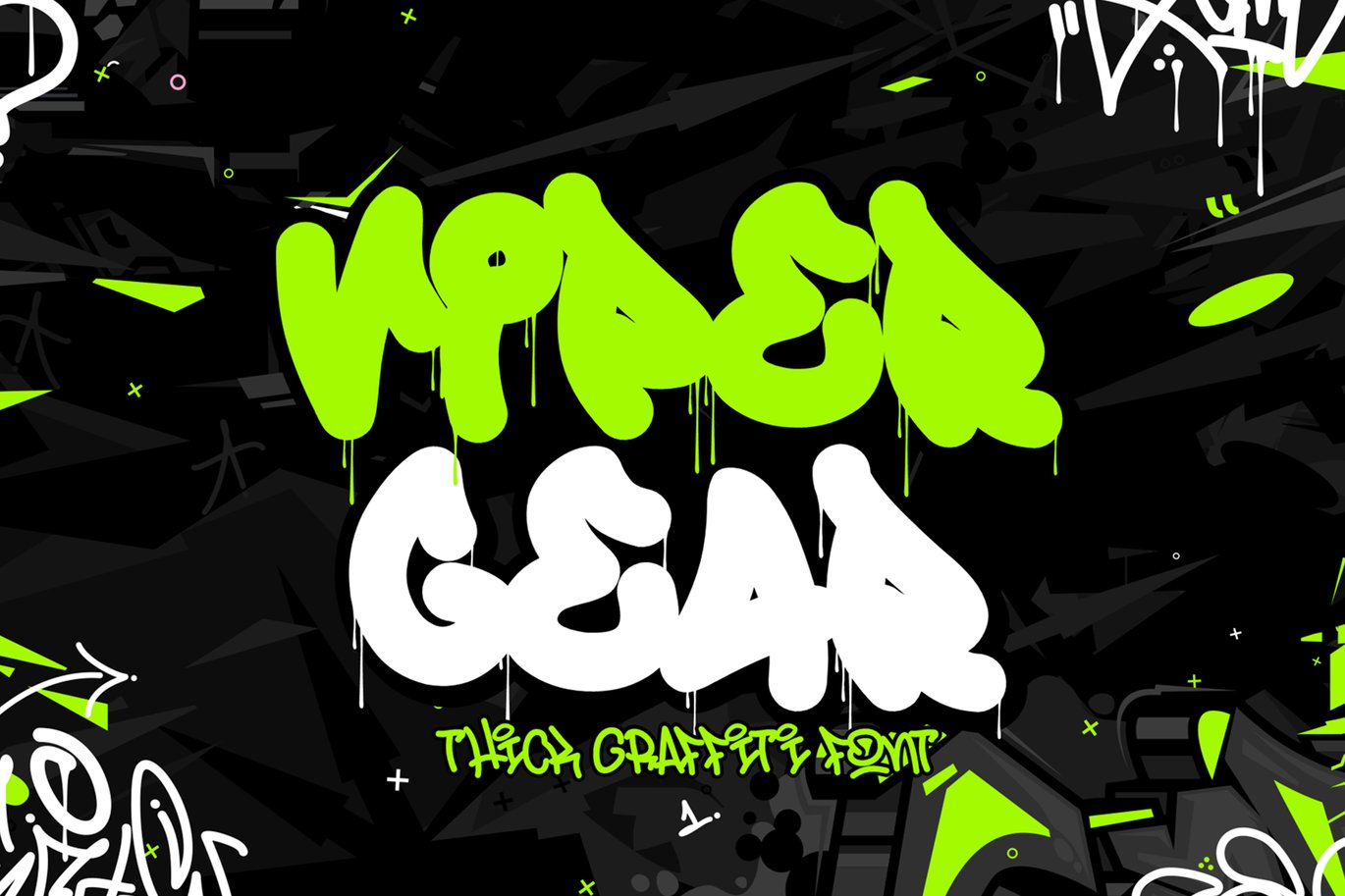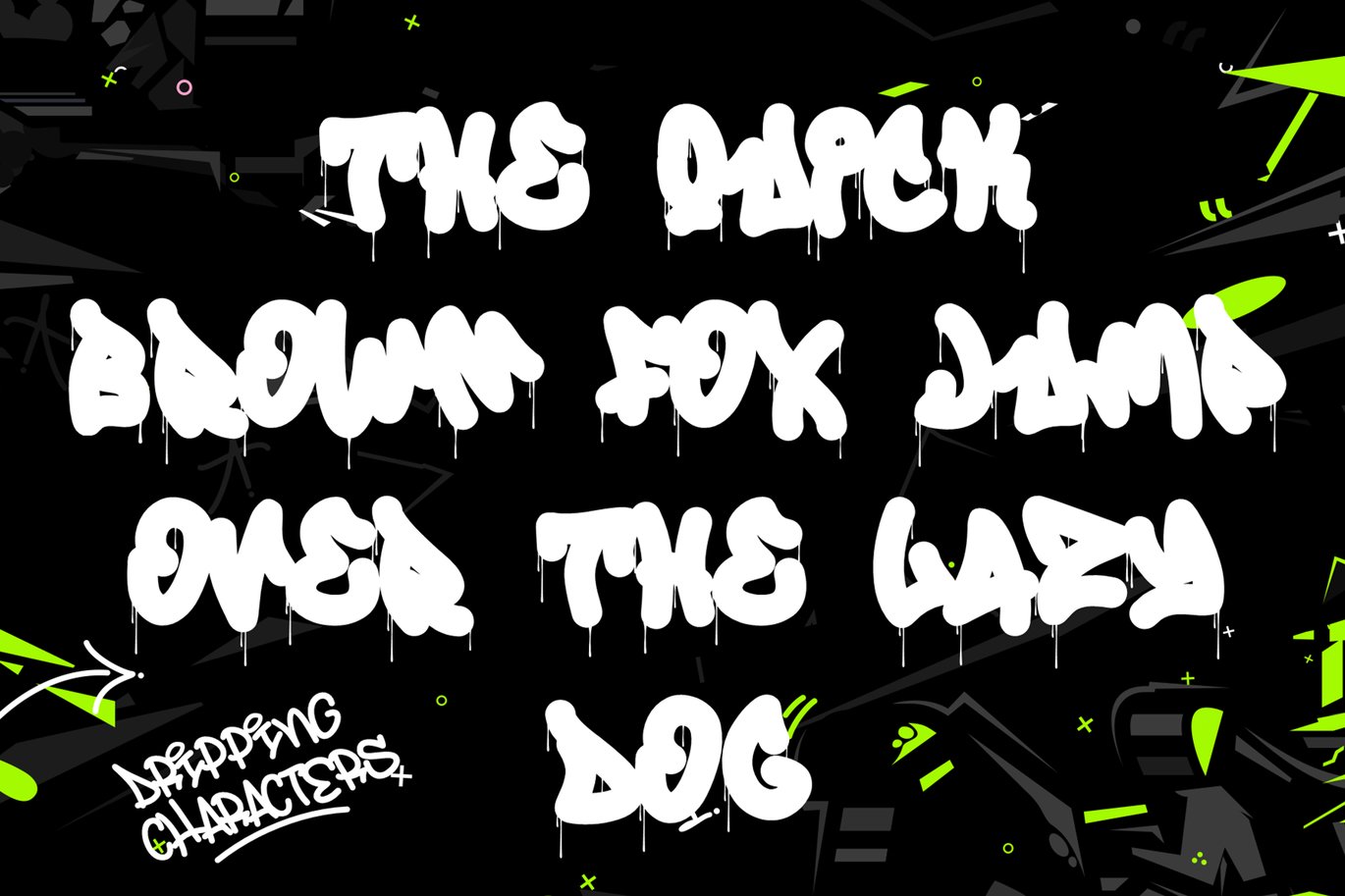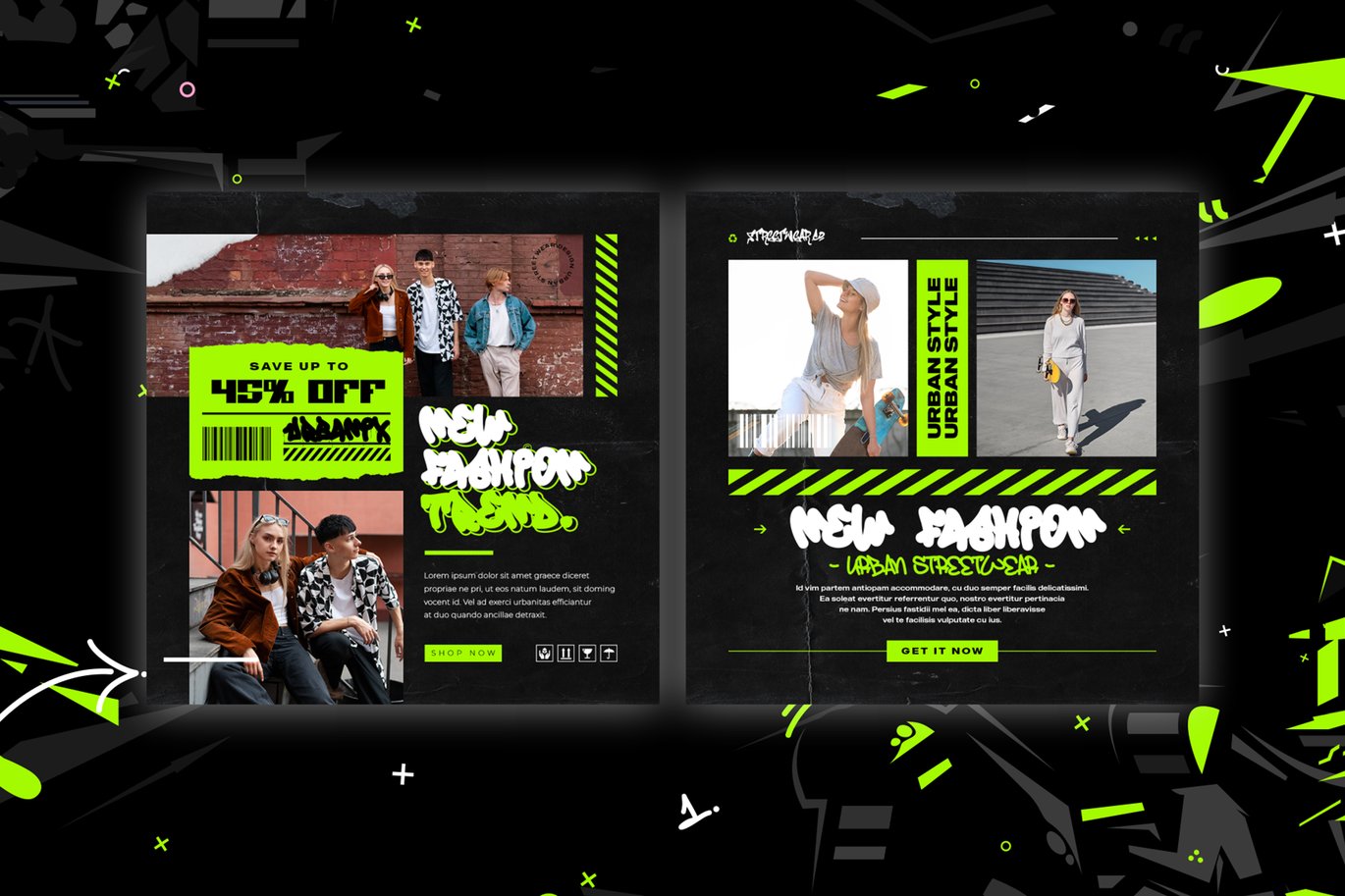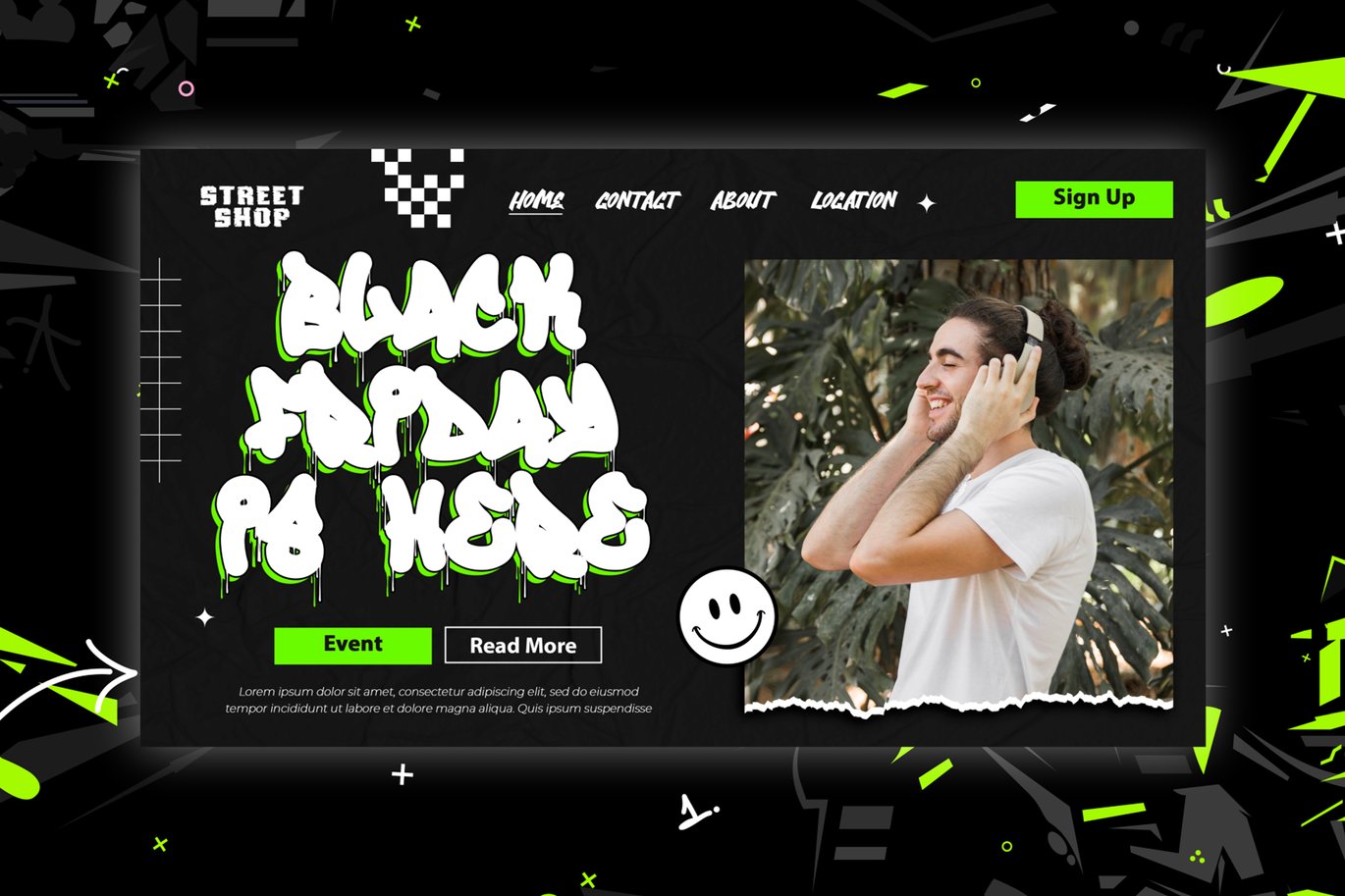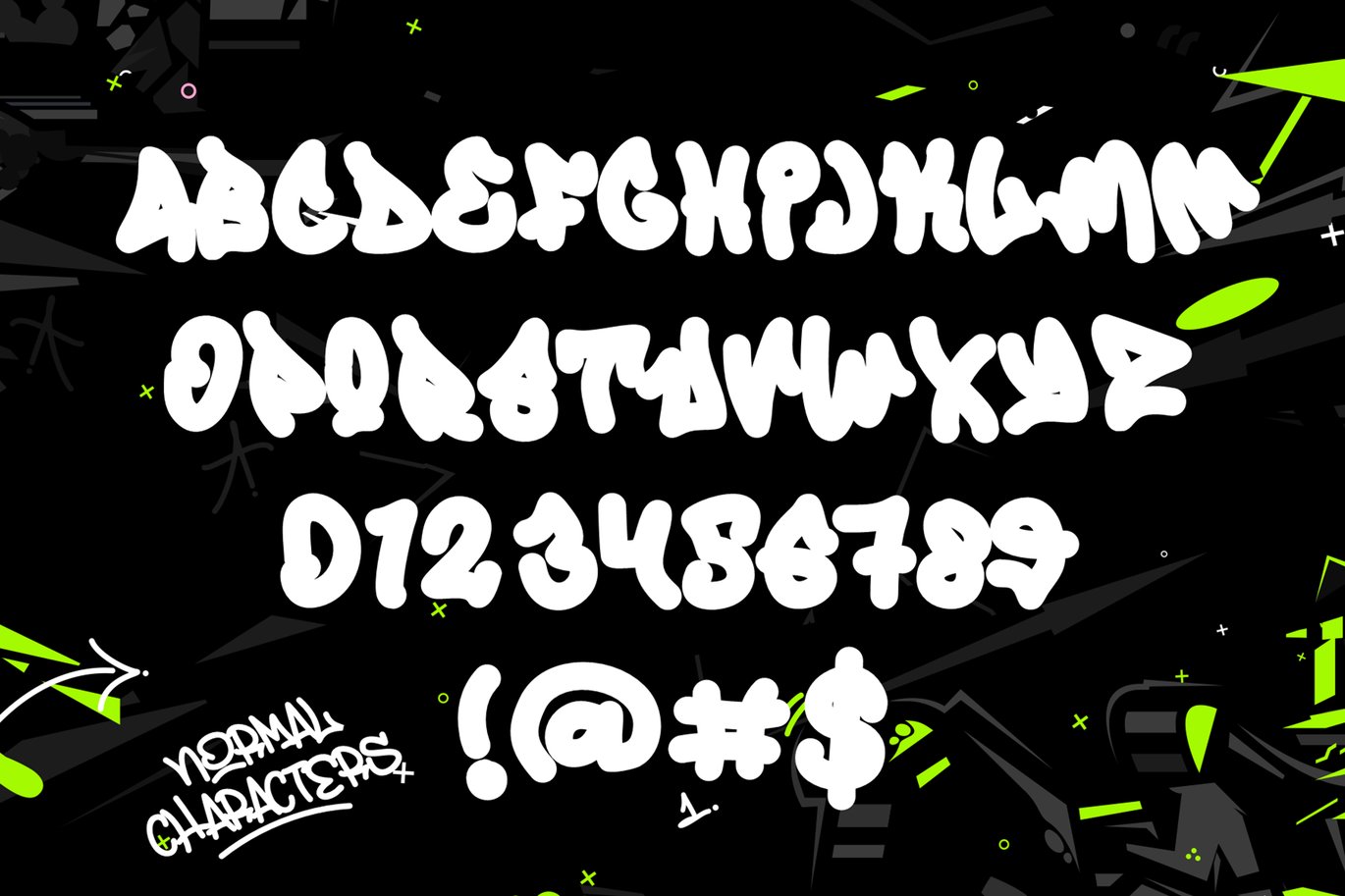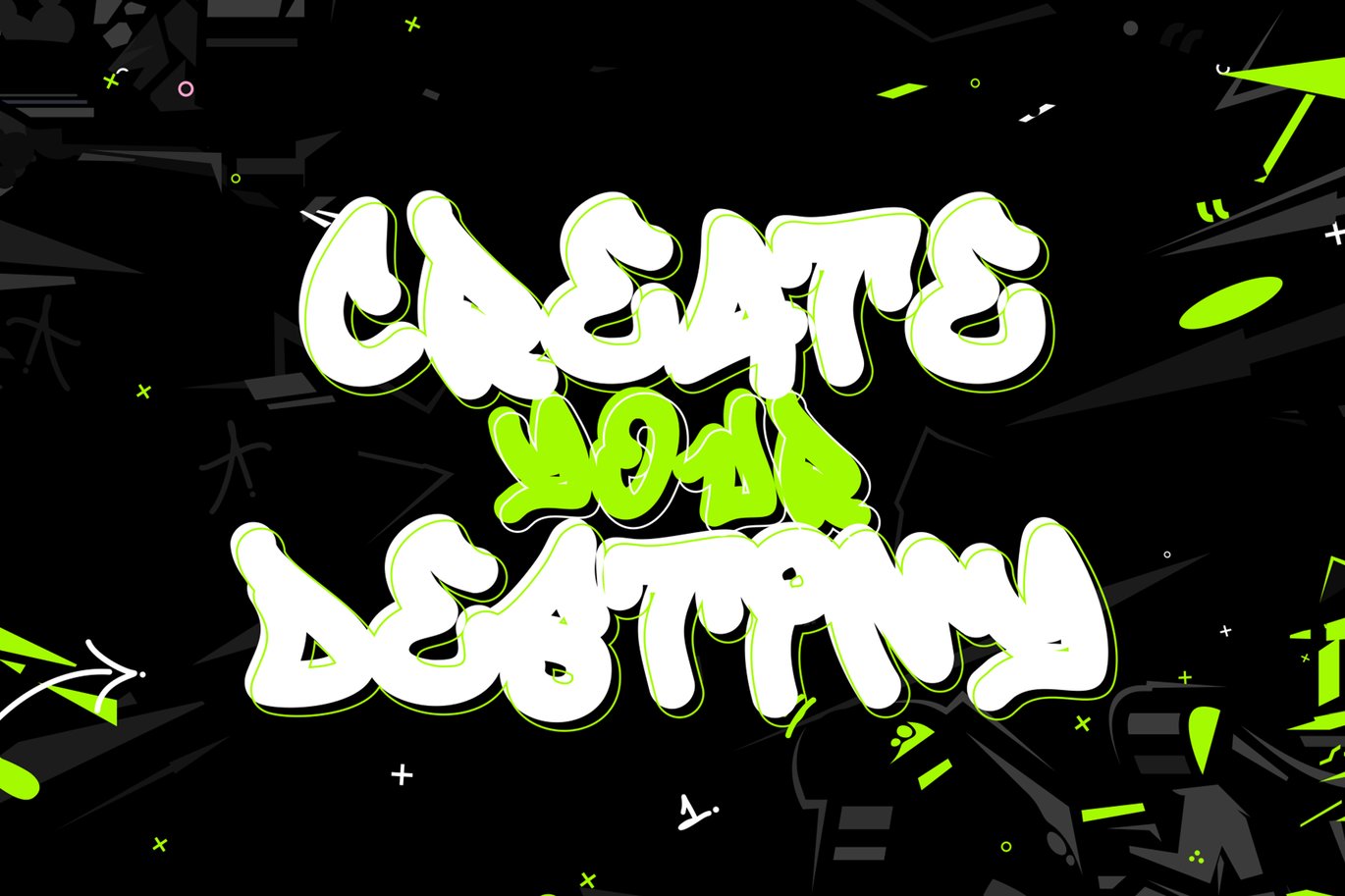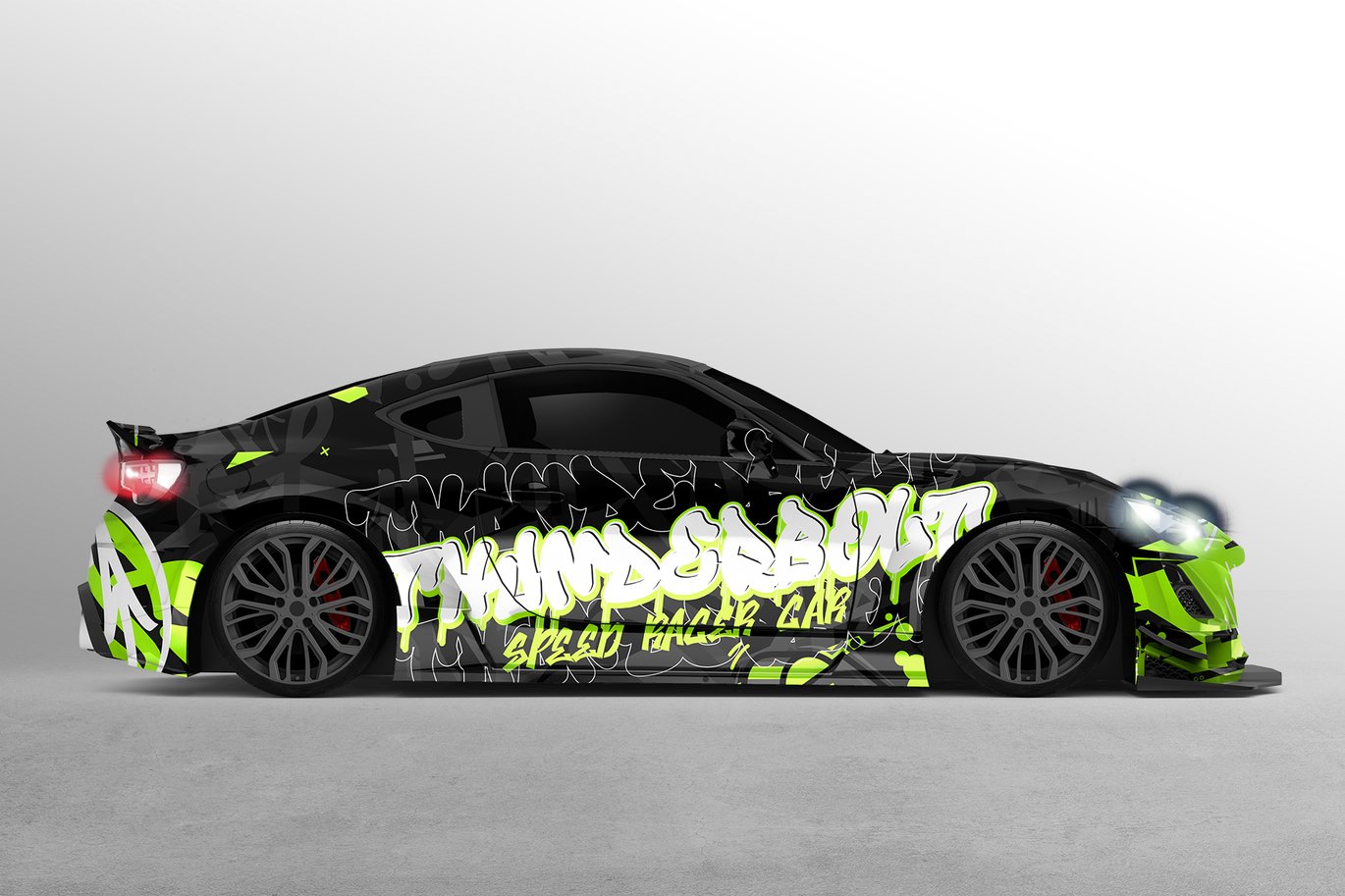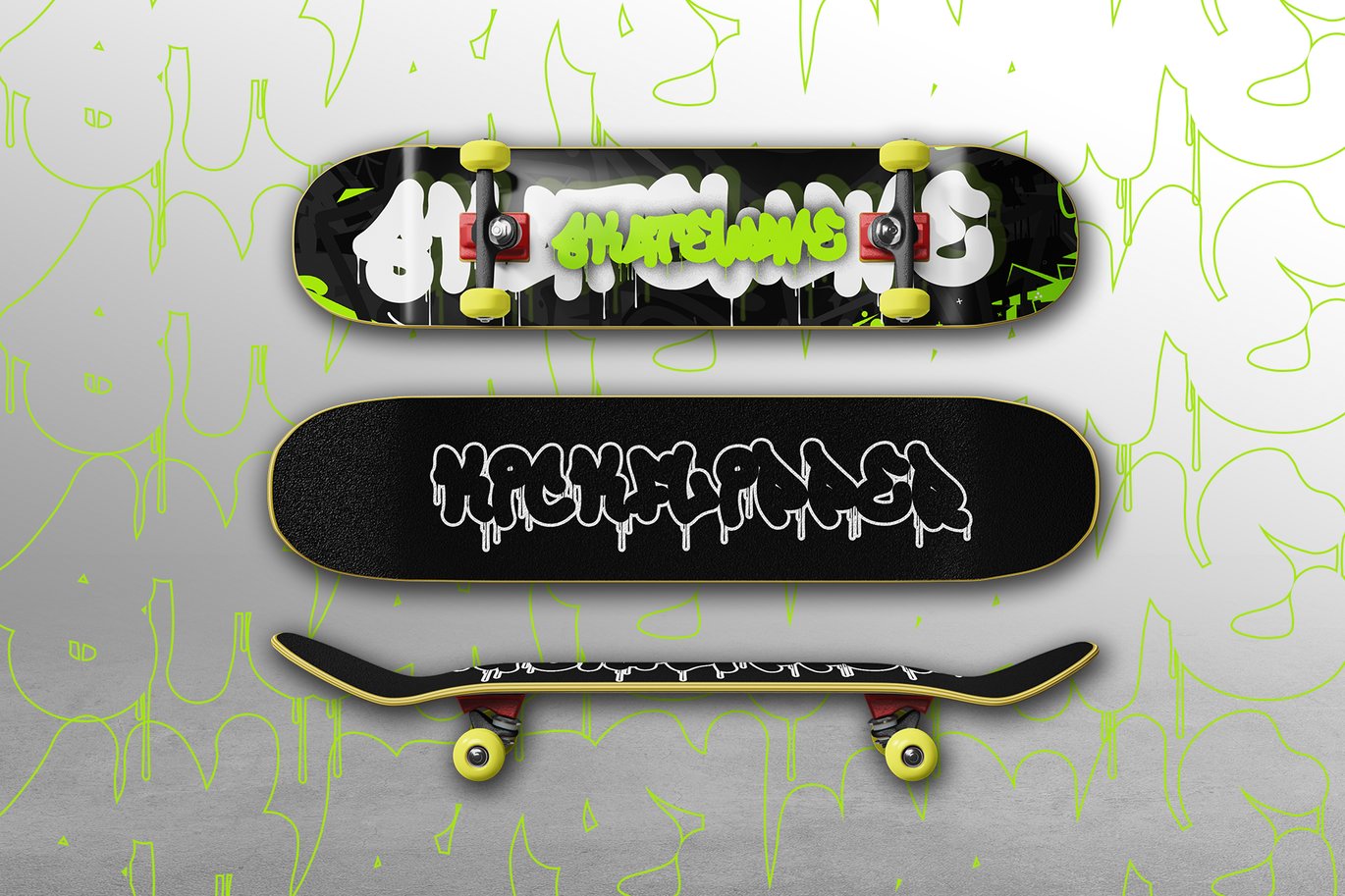
Viper Gear – Thick Graffiti Font
Introducing Viper Gear – the ultimate Thick Graffiti Font with a unique drip effect style that adds a raw and edgy vibe to your designs. Perfectly embodying the spirit of urban street art, Viper Gear is designed to make a bold, rebellious statement in any creative project.
� Urban Edge: Viper Gear captures the essence of graffiti with its thick, bold strokes and dynamic drip effects. Each letter oozes attitude and authenticity, making it ideal for designs that need a gritty and impactful touch.
� Raw and Rebellious: This font channels the raw energy of street art, bringing a sense of rebellion and defiance to your work. Perfect for album covers, branding, event posters, and more, Viper Gear ensures your message stands out with a powerful, urban aesthetic.
�️ Drip Effect Style: The distinctive drip effect adds an extra layer of visual interest, mimicking the look of fresh graffiti on a wall. This unique feature makes Viper Gear a standout choice for projects that demand a striking and memorable look.
� Bold Statements: Viper Gear is designed to make an impact. Its thick, commanding letterforms ensure your text captures attention and leaves a lasting impression. Use it for headlines, titles, and other prominent elements to create bold, eye-catching visuals.
�️ Versatile Application: Whether you’re designing for print or digital media, Viper Gear adapts seamlessly to various applications. Its edgy style is perfect for a wide range of creative projects, from street culture promotions to edgy advertisements.
Bring the spirit of the streets to your designs with Viper Gear – the Thick Graffiti Font with a drip effect style that combines raw urban energy with bold, striking visuals. Perfect for making a rebellious statement, Viper Gear is your go-to font for adding a powerful and edgy touch to any project.